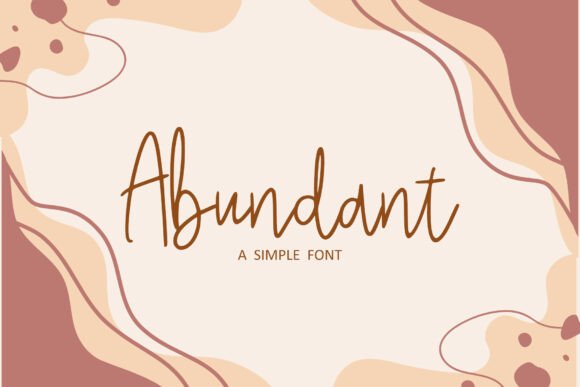
Introducing Abundant Font: Elevate Your Designs with Elegance and Sophistication
In the world of typography, few fonts manage to capture the essence of elegance and sophistication as effortlessly as Abundant Script Font. This beautiful, graceful, and flowing typeface is designed to add a touch of refinement to any design project, making it a perfect choice for designers and crafters looking to create stunning visual content. Whether you’re working on invitations, branding materials, greeting cards, or any other project that demands a high level of sophistication, Abundant Script Font is sure to exceed your expectations.
The Beauty of Abundant Script Font
Abundant Script Font stands out with its elegant swirls and intricate loops, which are characteristic of its refined cursive style. Each letterform is carefully crafted to flow seamlessly into the next, creating a sense of continuity and harmony that is both visually appealing and engaging. The font’s design is inspired by traditional calligraphy, yet it has a modern twist that makes it versatile and suitable for a wide range of applications.
Key Features of Abundant Script Font
- Elegant Swirls and Intricate Loops: The font’s graceful swirls and loops add a touch of sophistication and elegance to any design.
- Refined Cursive Style: Its beautiful cursive style makes it perfect for creating flowing, connected text that is easy to read and visually appealing.
- Fully PUA Encoded: Abundant Script Font is fully PUA (Private Use Area) encoded, which means it offers seamless access to all special characters and decorative elements without the need for additional design software.
- Versatile and Adaptable: The font’s versatility makes it suitable for a wide range of design projects, from formal invitations and branding materials to greeting cards and more.
Applications of Abundant Script Font
Abundant Script Font’s unique combination of elegance and versatility makes it an excellent choice for various design projects. Here are some of the ideal applications for this beautiful font:
- Invitations: Add a touch of sophistication to your wedding invitations, event invitations, or any other formal announcement.
- Branding: Elevate your brand’s visual identity with a refined and elegant typeface that communicates luxury and sophistication.
- Greeting Cards: Create beautiful and heartfelt greeting cards for special occasions such as birthdays, anniversaries, and holidays.
- Stationery: Enhance your stationery designs, including letterheads, notebooks, and journals, with a touch of elegance.
Why Choose Abundant Script Font?
With so many fonts available, why should you choose Abundant Script Font for your design projects? Here are a few compelling reasons:
- Unique and Distinctive: Abundant Script Font offers a unique and distinctive style that sets it apart from more common typefaces.
- Ease of Use: Being fully PUA encoded, it provides easy access to all its features without requiring additional software or complicated design workarounds.
- High Versatility: Its adaptability makes it suitable for a wide range of design projects, ensuring you can use it across different mediums and applications.
- Support for Special Characters: The font’s PUA encoding ensures you have access to a variety of special characters and decorative elements, allowing for highly customized designs.
Abundant Script Font is a stunning typeface that brings elegance, sophistication, and a touch of luxury to any design project. Its beautiful swirls, intricate loops, and refined cursive style make it an ideal choice for designers and crafters looking to create visually appealing content. With its fully PUA encoded feature, versatility, and adaptability, Abundant Script Font is set to become a favorite in your font collection. Whether you’re designing invitations, branding materials, greeting cards, or more, this graceful and flowing typeface is sure to elevate your designs to new heights of sophistication and elegance.